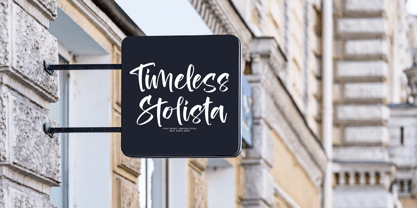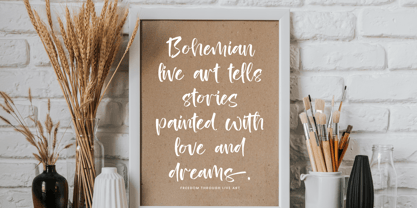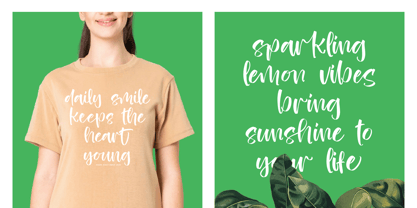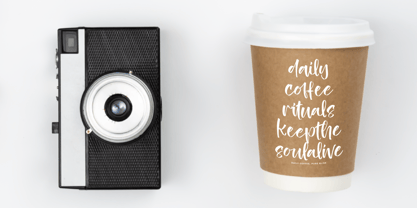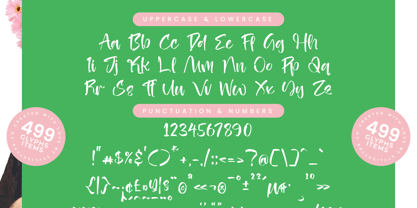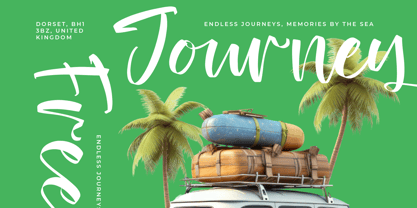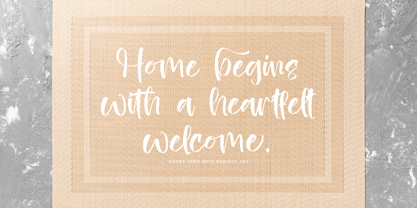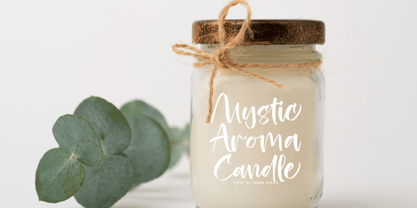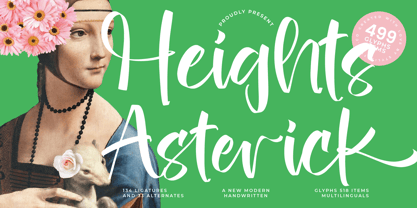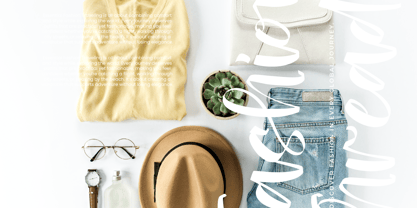
Heights Asterick
by Stylishtype Studio
The Heights Asterick Font Family was designed by Heru Utama Putra and published by Stylishtype Studio. Heights Asterick contains 2 styles and family package options. More about this family
Heights Asterick - Modern Handwritten Font , from Stylishtype , Suitable for any projects such as: logos, branding projects, homeware designs, product packaging, mugs, quotes, posters, shopping bags, t-shirts, book covers, name card, invitation cards, greeting cards, label, photography, watermark, special events, and all your other luxury and beautiful projects that need a Luxury Script taste.